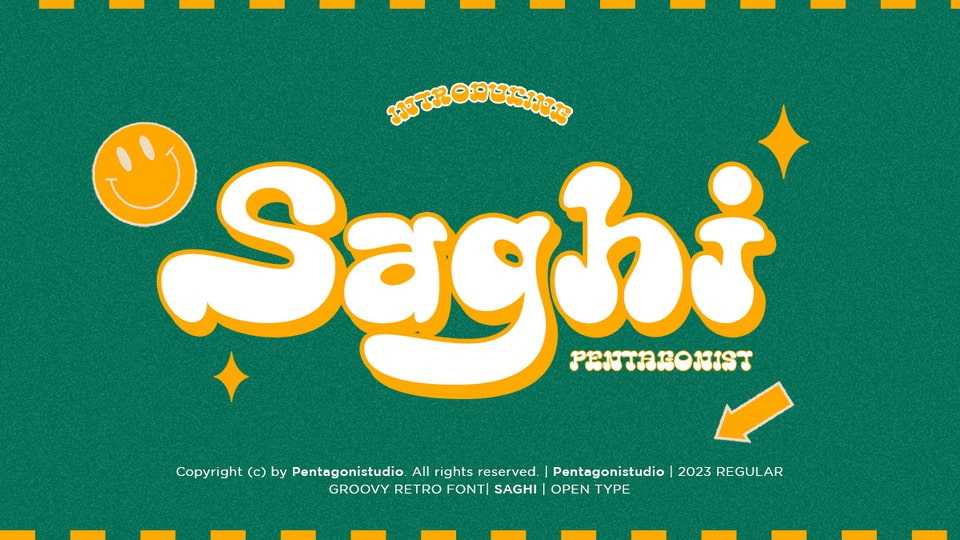
Download Saghi font, a playful display typeface that brings back the groovy vibes of the 1970s. Its unique, geometric shapes and vibrant colors create an energetic and dynamic look.
Designer: Pentagonistudio